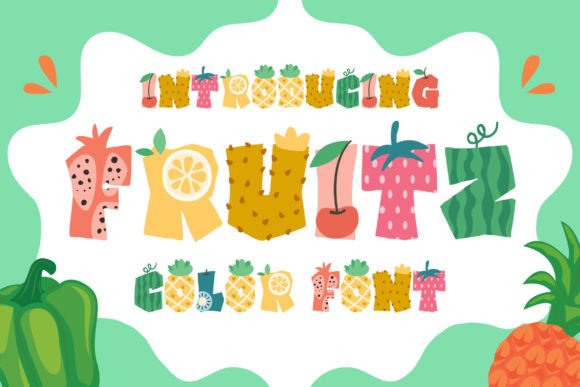
Dive into the captivating world of Fruitz Font, the ultimate SVG color font that radiates creativity and sparks imagination. This enchanting collection of fonts is a feast for the eyes, designed to transform your designs into vibrant and captivating masterpieces.
With Fruitz Font, let your imagination run wild and unleash your artistic flair. Create designs that radiate joy and inspire endless fun. Its playful typography and vibrant colors make it the perfect choice for book covers, posters, packaging, merchandise, logotypes, and any project that demands a touch of whimsy and uniqueness.
Effortlessly elevate your designs with Fruitz Font's remarkable aesthetics. Its carefully crafted characters exude charm and personality, bringing your creations to life with a captivating aura. Immerse yourself in a world of visual delight as Fruitz Font takes your designs to new heights of visual appeal.